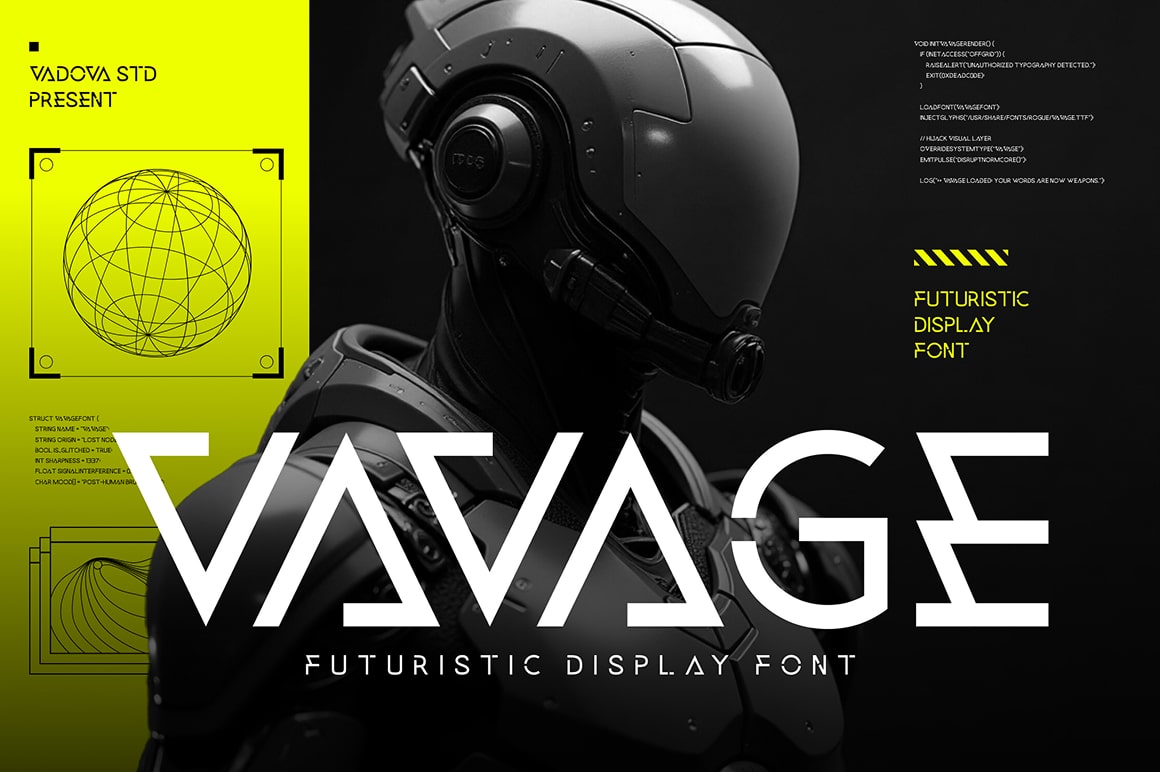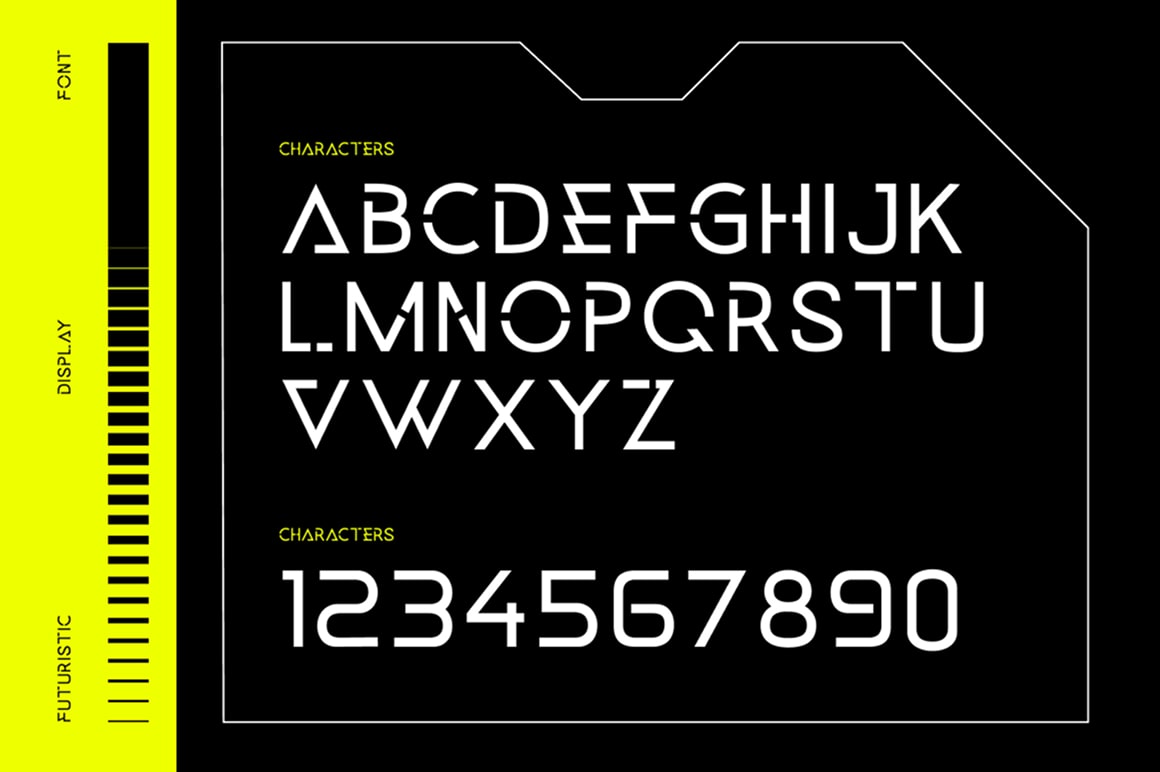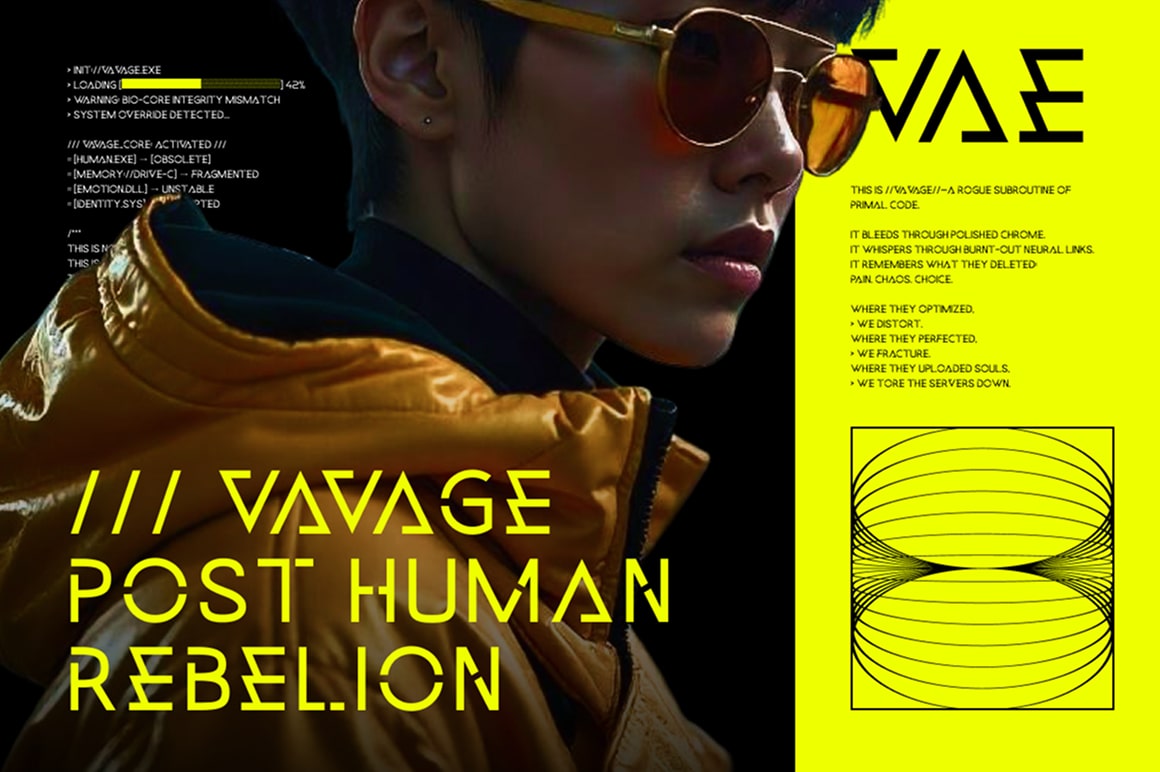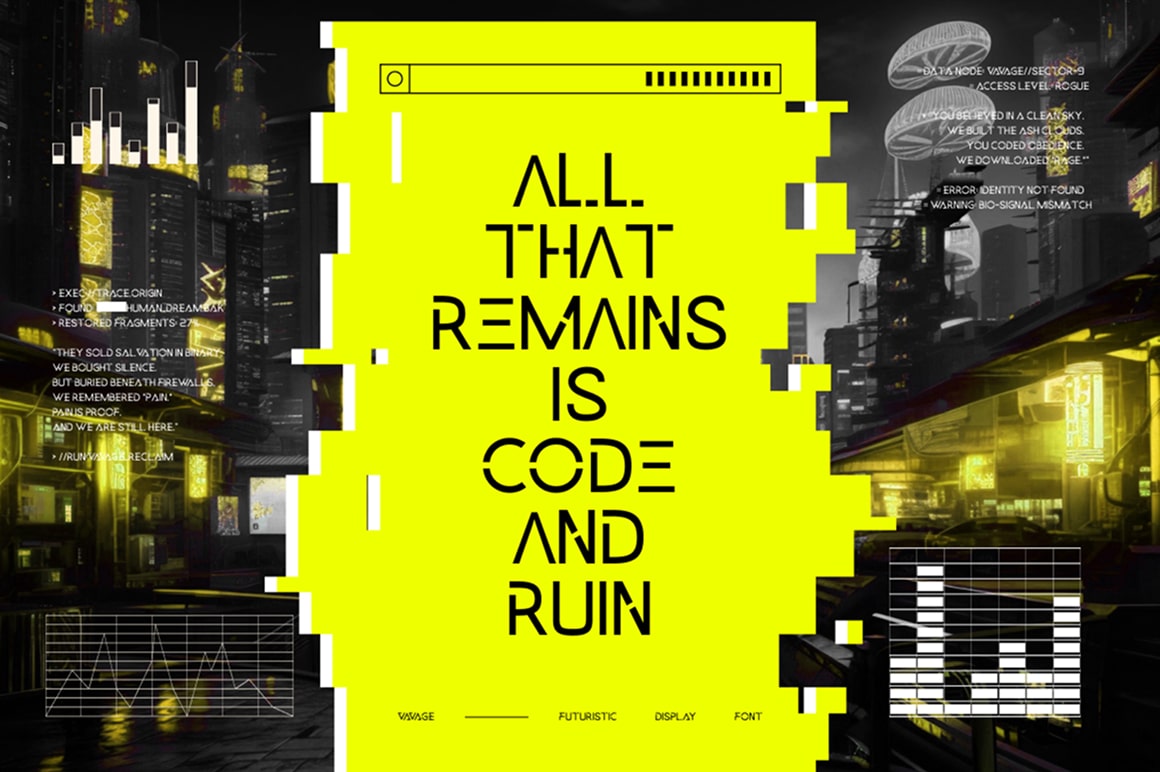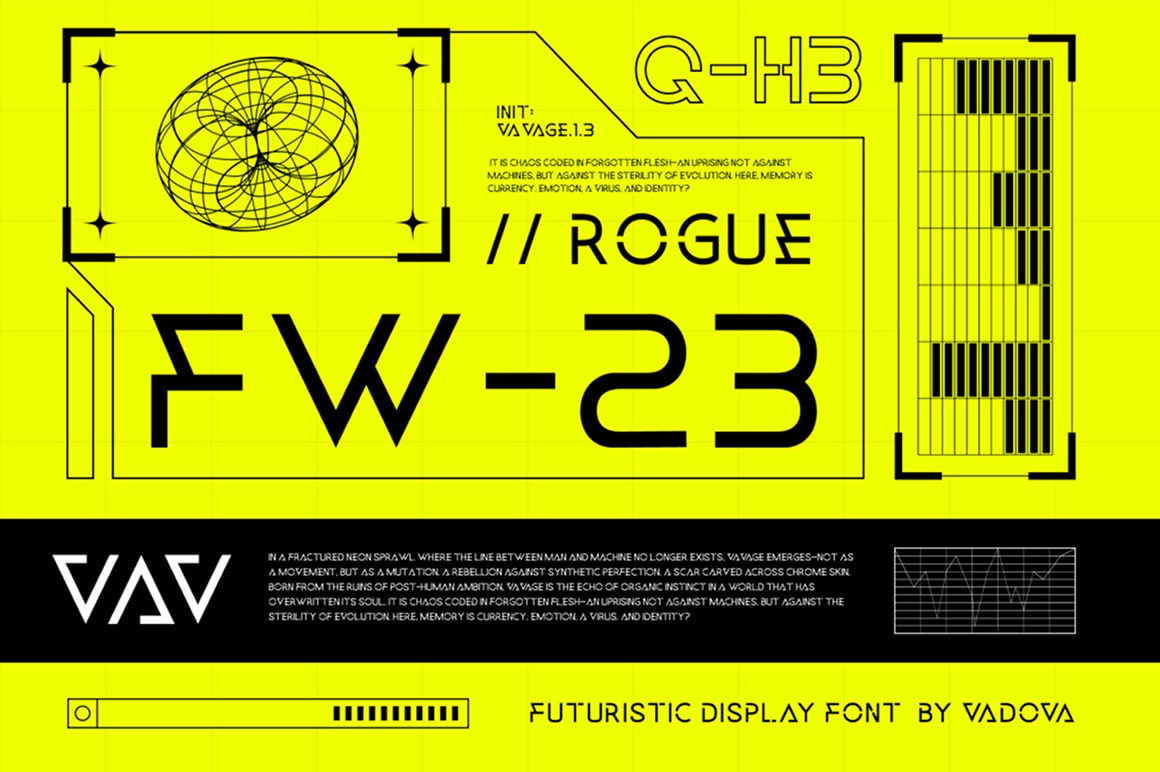
Vavage Creative Display Font
Elevate your designs with Vavage Creative Display Font, a modern font perfect for adding elegance and style to your projects. Whether it’s for quotes, logotypes, magazine headers, or more, this versatile typeface ensures your text stands out beautifully.